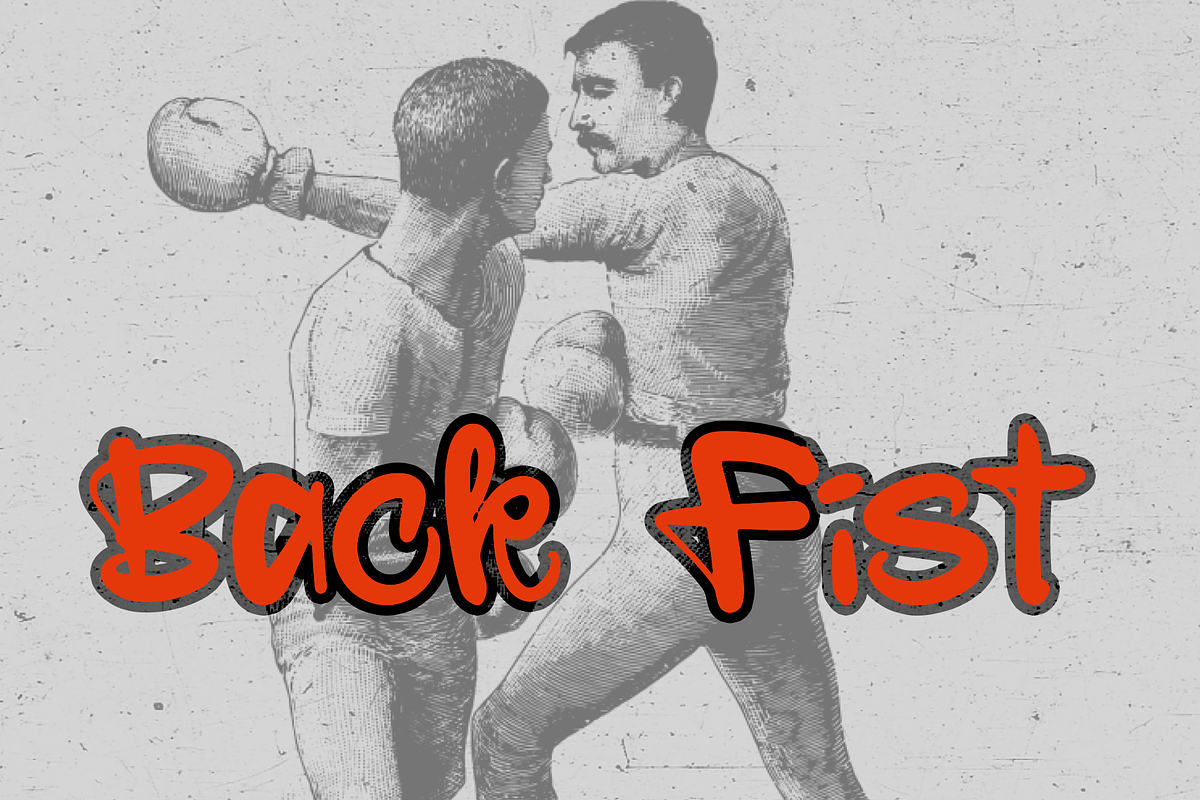
Back Fist Handwriting Font Free Download is a bold and edgy handwritten typeface that blends raw energy with street-style attitude. With its rough strokes, quick penmanship, and rebellious vibe, this font is perfect for urban branding, music posters, apparel design, edgy quotes, and social media graphics that need a punch of personality.
Designed to stand out, Back Fist Handwriting Font Free Download captures the look of expressive handwriting with a tough, dynamic edge. It works great in both print and digital formats, especially when you're looking to make a loud, personal, and unpolished statement.